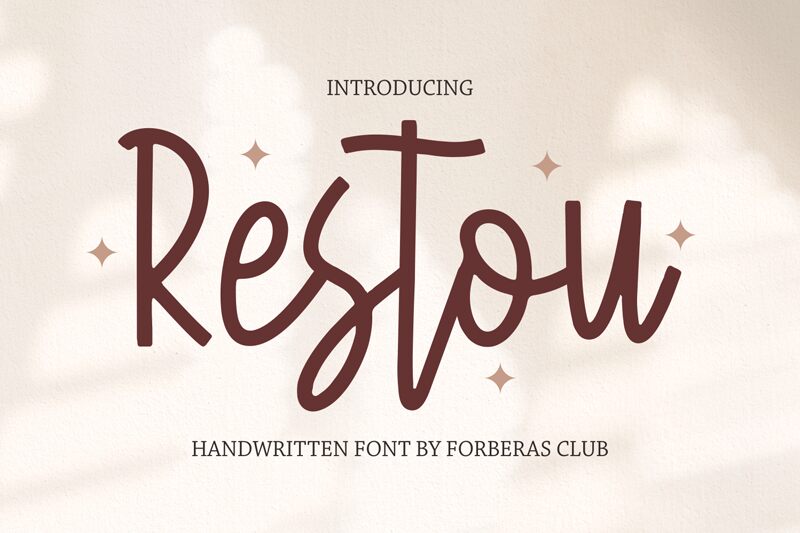
Restou, a delightful creation by Forberas Club, is an exquisite handwritten font that effortlessly exudes elegance and sophistication. With its light weight, this font adds a touch of refinement to any project. Its condensed width enhances readability and allows for more content in limited spaces.
Perfect for wedding invitations, fashion magazines, and luxury branding projects, Restou lends a graceful charm that captivates the eye.
Let this eloquent typeface elevate your designs to new heights and leave a lasting impression on your audience.